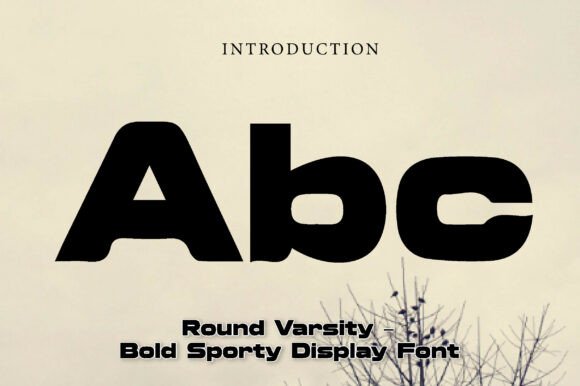
Introduction to Round Varsity Font
As a designer, you know that the right font can make all the difference in bringing your creative vision to life. Remember that moment when you stumbled upon the perfect font for your project, and everything just clicked? For me, that moment came when I discovered the Round Varsity Font. Its bold, dynamic display style instantly drew me in, and I knew I had to learn more.
The Round Varsity Font is more than just a design resource – it’s a powerful tool that can elevate your high-quality designs to the next level. With its robust structure and confident stance, this font is perfect for creating visually-impactful projects that require a distinct identity. Whether you’re working on a sports branding project or designing a poster for a gaming event, the Round Varsity Font ensures your typography pops and makes an assertive statement.
Key Features of Round Varsity Font
- Unique characteristics: rounded edges, modern aesthetic, and a versatile design suitable for headings and body text
- Designed to be easily readable on various devices and platforms, making it a great choice for digital projects
Honest Review: Round Varsity Font
I recently stumbled upon the Round Varsity Font and I’m excited to share my honest review with you.
- ✨ The font is a high-quality, unique design resource that can elevate any creative project.
- ⚠️ The font is not as versatile as some other fonts on the market, and it may not be suitable for all types of projects.
- ⚠️ The Round Varsity Font is a bit too bold for some designs, so it’s essential to use it sparingly.
Overall, I’m impressed with the Round Varsity Font. It’s a great design resource for anyone looking to add a touch of elegance and sophistication to their creative project. While it may have some limitations, I believe it’s a valuable addition to any designer’s toolkit.
How to Use Round Varsity Font
The Round Varsity Font is a high-quality design resource perfect for creative projects. With its unique, modern aesthetic, this font is ideal for making a statement in your next design.
Getting the Most Out of Round Varsity Font
To get the most out of the Round Varsity Font, experiment with different font sizes, colors, and combinations. Use it to add a touch of modernity to your designs and stand out from the crowd.
The Round Varsity Font is perfect for:
- Social media graphics and posts
- Posters and flyers
- Business cards and branding materials
Alternatives to Round Varsity Font
Alex Brush Font is a high-quality, modern script font that features a beautiful, elegant design. It’s perfect for creative projects that require a touch of sophistication and refinement. Alex Brush Font is available for free download and is a great design resource for designers who want to add a unique touch to their designs.